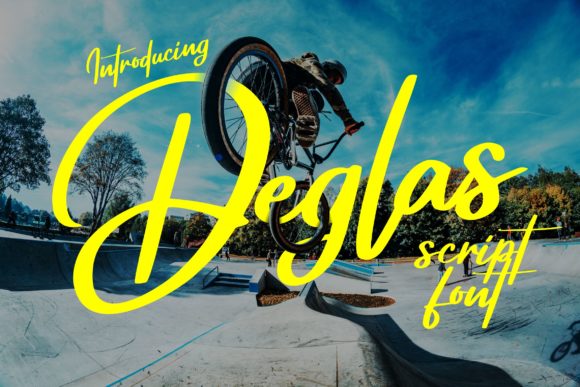
Journey into the world of Degas, a captivating script font that captivates with its unique approach to letterform. Created by the visionary Vunira, Degas is a masterpiece that entices with its modern and playful spirit. Let your designs flourish with the vivacity of Degas, a font that infuses your words with a sense of joy and wonder.
Degas effortlessly blends the classic allure of script with a touch of whimsy, making it an ideal choice for those who seek to make a statement with their digital designs. With its fluid lines and graceful swashes, Degas adds a touch of sophistication to any project, whether it be a personal blog, an online store, or even a heartwarming letter to a loved one.
Embrace the versatility of Degas, a font that seamlessly adapts to a myriad of creative endeavors. From creating eye-catching social media posts to crafting captivating blog posts that leave a mark, Degas becomes your steadfast partner in communication. Its natural flow and legibility make it a dream to use, allowing your words to truly sing.
It's time to say yes to Degas, the script font that's sure to elevate your designs to new creative frontiers. With its unique style and undeniable appeal, Degas will transform your words into captivating works of art. Dive into the world of Degas today and watch your words come to life.